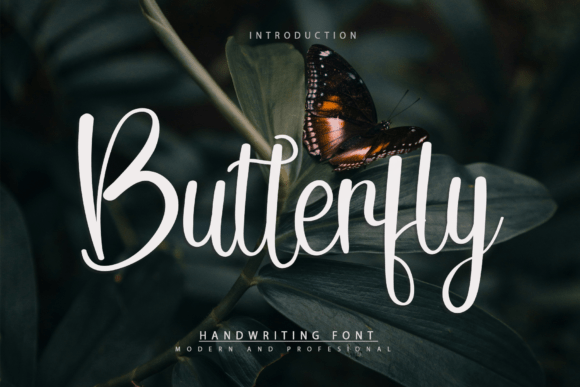
The Art of Whimsy: Introducing the Butterfly Font
As designers, we’ve all been there – staring at a blank page, searching for the perfect font to bring our creative vision to life. The moment when everything clicks, and the words start flowing is pure magic. For me, that moment came when I stumbled upon the Butterfly Font – a simple, yet elegant handwritten font that has become a staple in my design arsenal.
Butterfly Font is more than just a pretty face; it’s a versatile tool that can elevate your projects from greeting cards to headlines. Its natural, effortless feel makes it a valuable asset for designers looking to add a touch of whimsy to their work. Whether you’re a seasoned pro or a budding designer, the Butterfly Font is sure to inspire your creativity and help you bring your ideas to life.
Key Features of Butterfly Font
- Unique Characteristics: Butterfly Font features a unique, hand-drawn design with a mix of elegant and playful elements, making it suitable for a variety of applications, including invitations, greeting cards, and advertising materials.
- Font Style: Butterfly Font is available in Regular, Italic, Bold, and Bold Italic styles, providing users with a range of options to suit their design needs.
Designer Review: Butterfly Font
Overall, I’d say the Butterfly Font is a decent addition to any designer’s toolkit. It has its moments, but it’s not without its limitations. Let’s dive in.
- Elegant and Whimsical Feel: The font’s curvaceous lines and delicate shapes evoke a sense of lightness and airiness, making it perfect for designs that need a touch of whimsy.
- Good Legibility: Despite its playful nature, the font is surprisingly easy to read, even at smaller font sizes.
- Neutral Color Palette: The font’s color palette is neutral and versatile, making it easy to integrate into a wide range of design projects.
- Limited Character Set: The font’s character set is somewhat limited, which can make it difficult to use for complex texts or languages.
- Not Ideal for Body Text: While the font works well for headlines and titles, it’s not the best choice for body text due to its limited legibility at smaller font sizes.
Overall, I’d give the Butterfly Font 3.5 out of 5 stars. While it’s a lovely addition to any designer’s toolkit, its limitations make it better suited for specific design projects rather than everyday use.
Tips for Getting the Most Out of the Butterfly Font
Use the Butterfly Font to add a whimsical touch to your designs. It pairs well with other hand-drawn or vintage fonts. Experiment with different font sizes and colors to create a unique look.
The Butterfly Font is perfect for:
- Birthday invitations and party decorations
- Wedding stationery and decorations
- Children’s book illustrations and graphics
- Floral and garden-themed designs
Alternatives to Butterfly Font
Great Vibes is a beautiful, handwritten font perfect for creating a whimsical and carefree atmosphere. It’s ideal for use in headings, titles, and quotes where a touch of elegance is desired.
Compared to Butterfly Font, Great Vibes has a more fluid and organic feel, making it suitable for projects that require a softer, more artistic tone. While Butterfly Font is more playful and bold, Great Vibes is more refined and sophisticated.